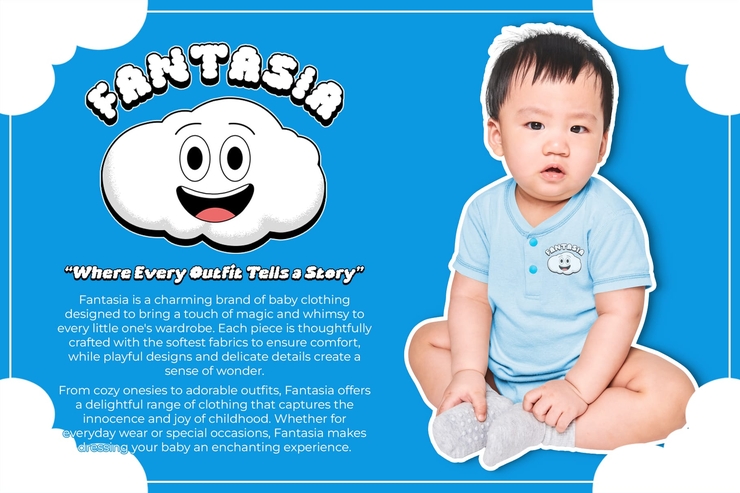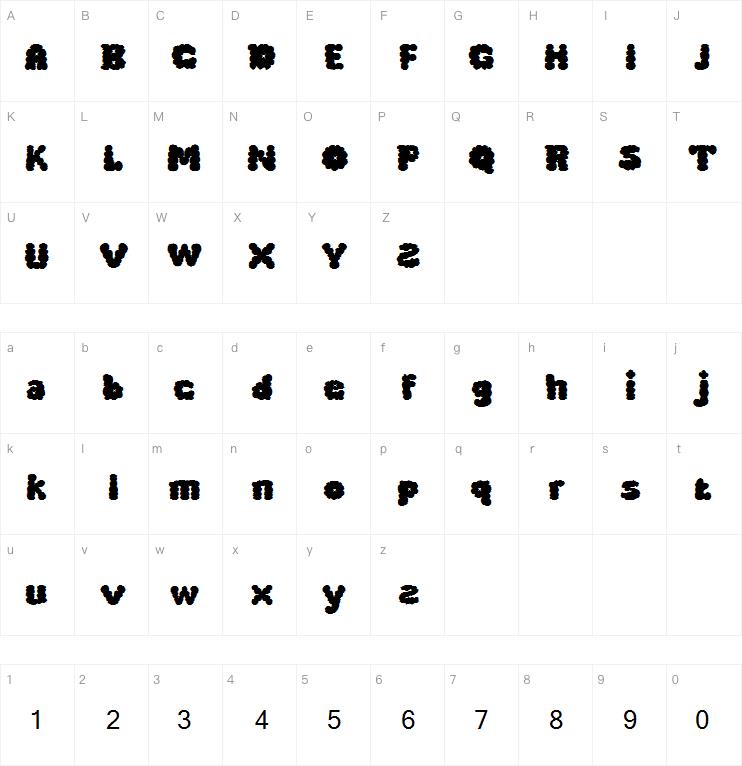
Colence Rough Stylish Trendy Tech Elegant English Font
Colence Rough is a distinctive English typeface that merges trendy fashion, futuristic tech vibes and elegant character shapes. It features unique rough textured strokes, smooth natural lines and well-balanced glyph structure, delivering a raw artistic feel combined with modern sophistication. The font perfectly blends stylish trendiness, subtle technological atmosphere and timeless elegance, making every letter look refined and eye-catching. It includes complete uppercase and lowercase characters, ideal for brand logos, fashion posters, tech banners, e-commerce headlines, product packaging, UI layouts and decorative typography. All glyphs stay clear and scalable, easy to adjust size, color and texture while preserving its original rough charm. Perfect for designers, creative studios and commercial branding to add exclusive trendy and high-end style to all creative projects.Free for Commercial Use / No Copyright